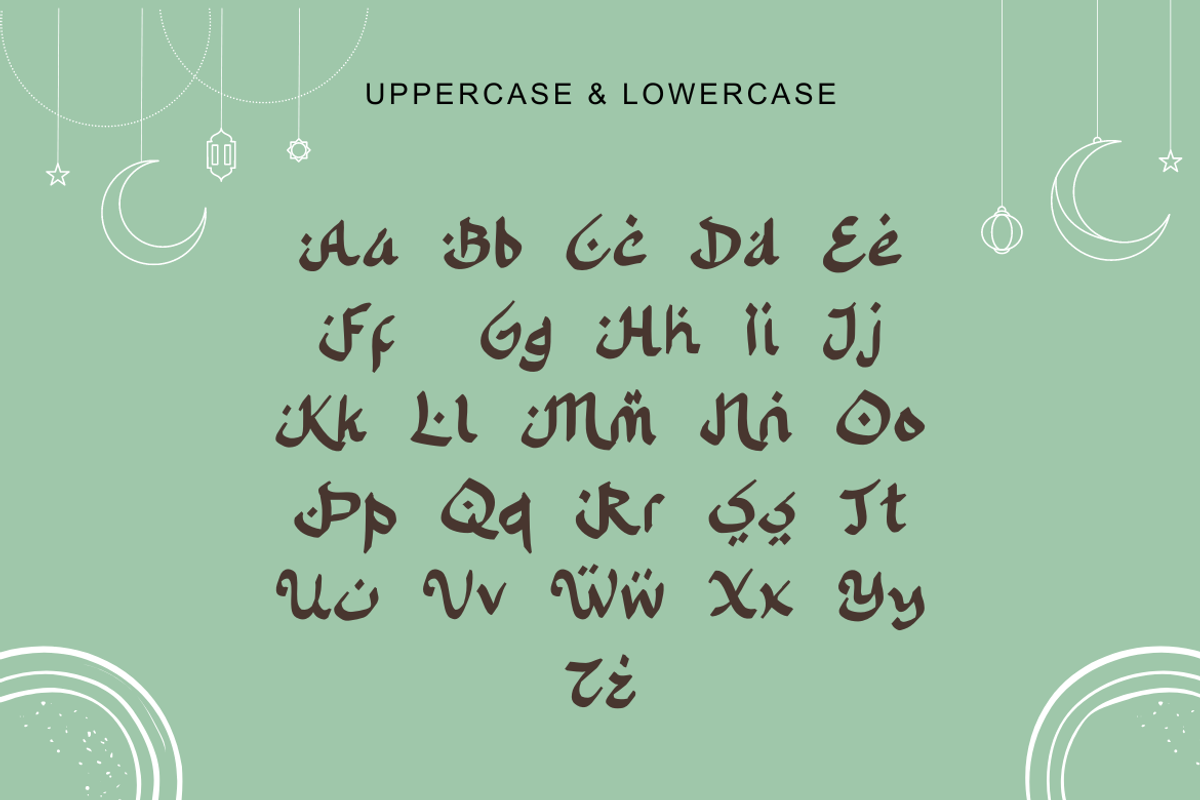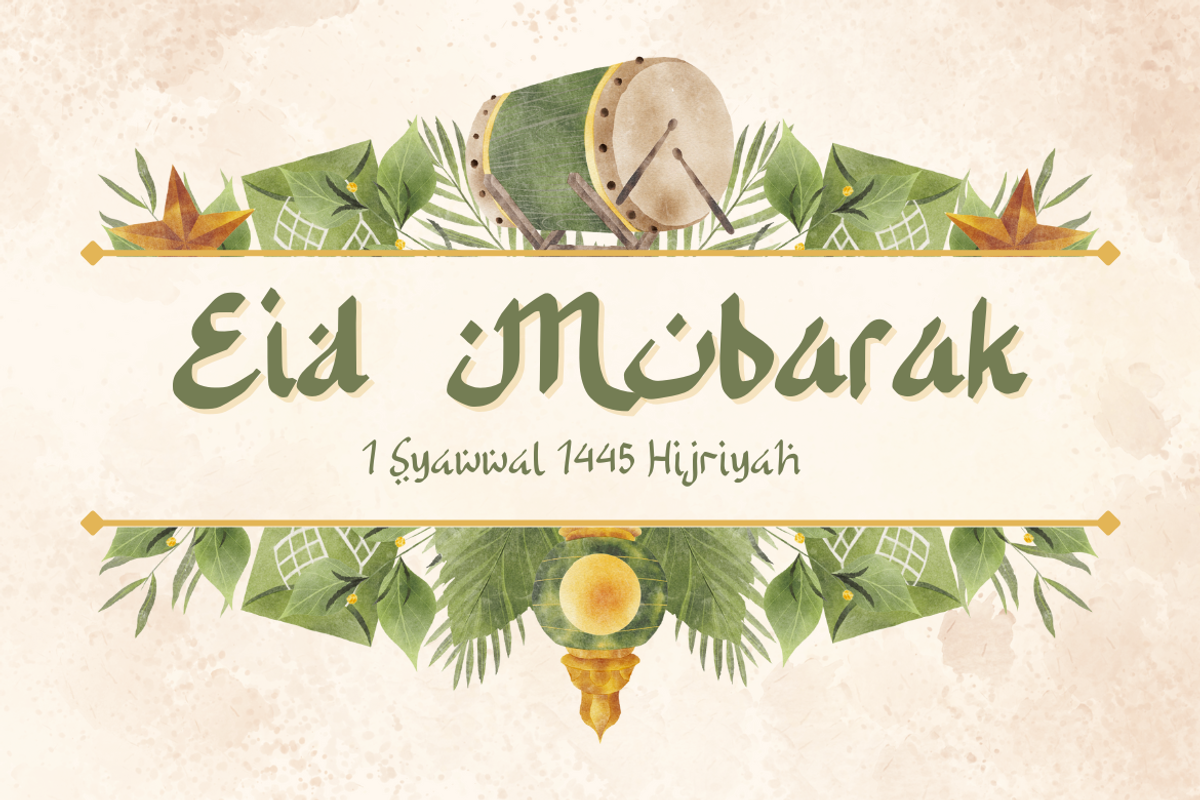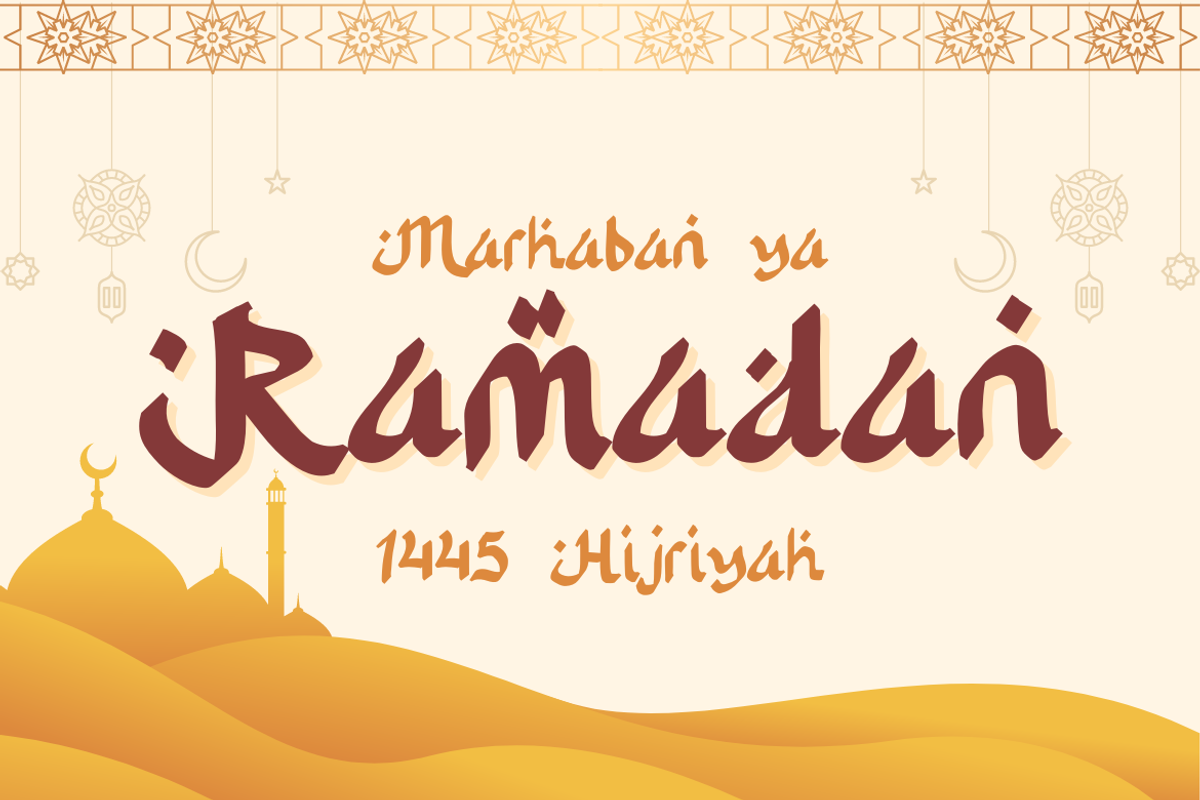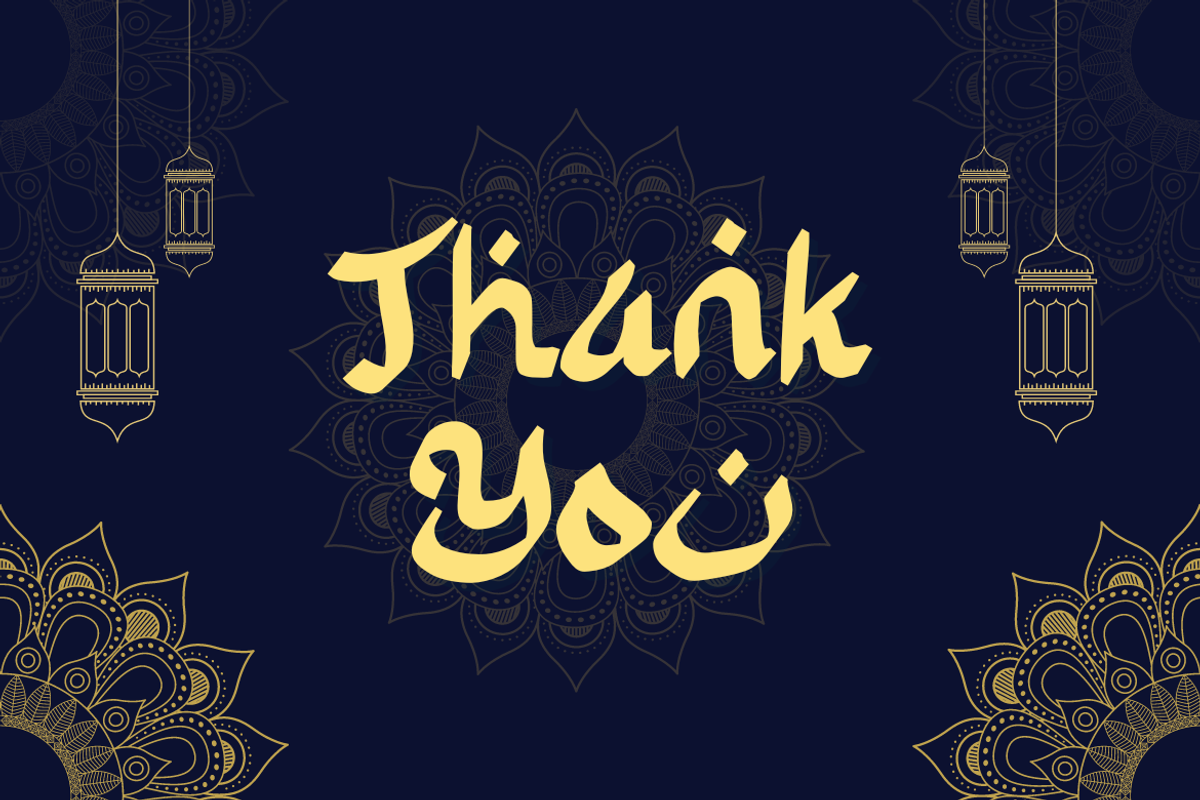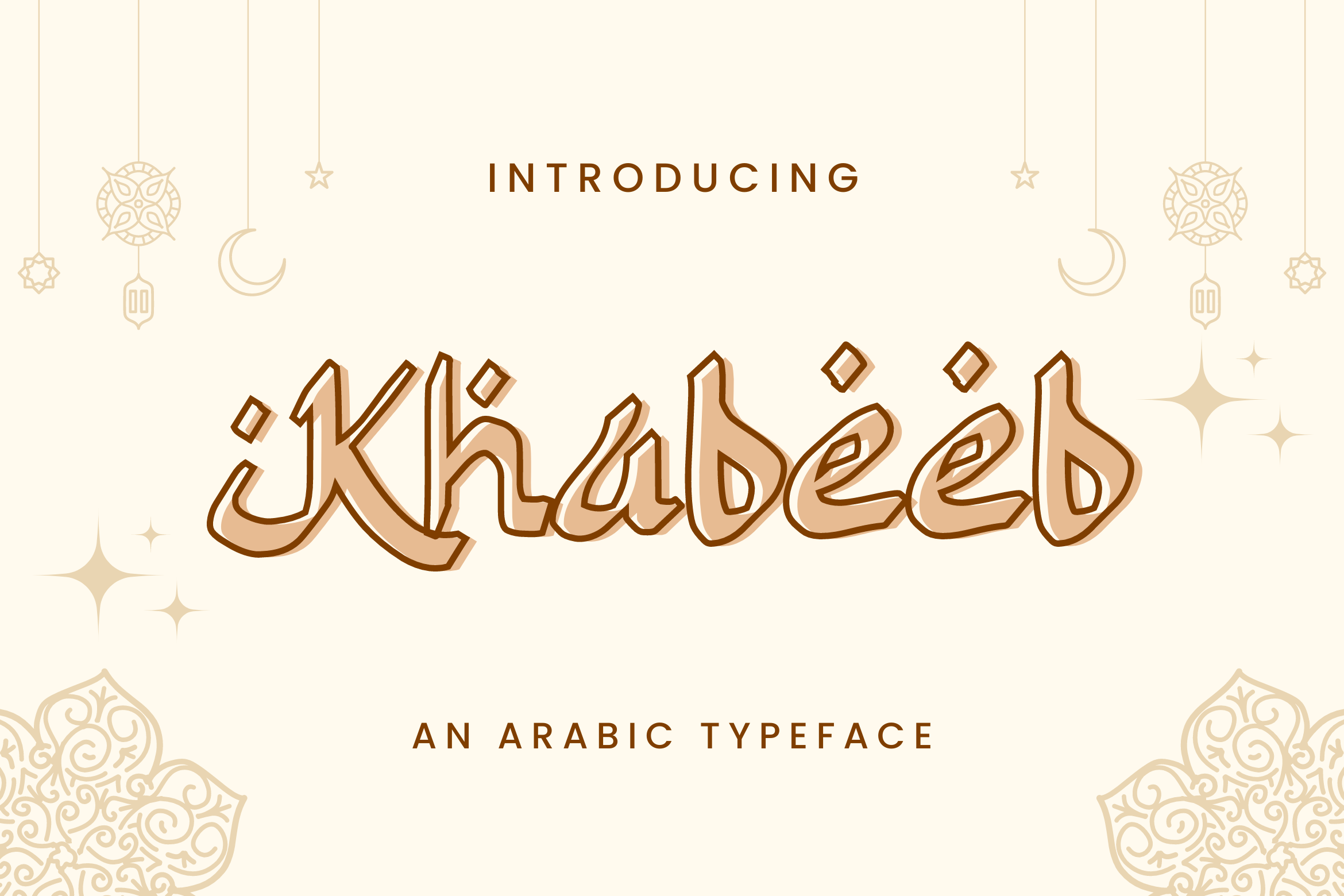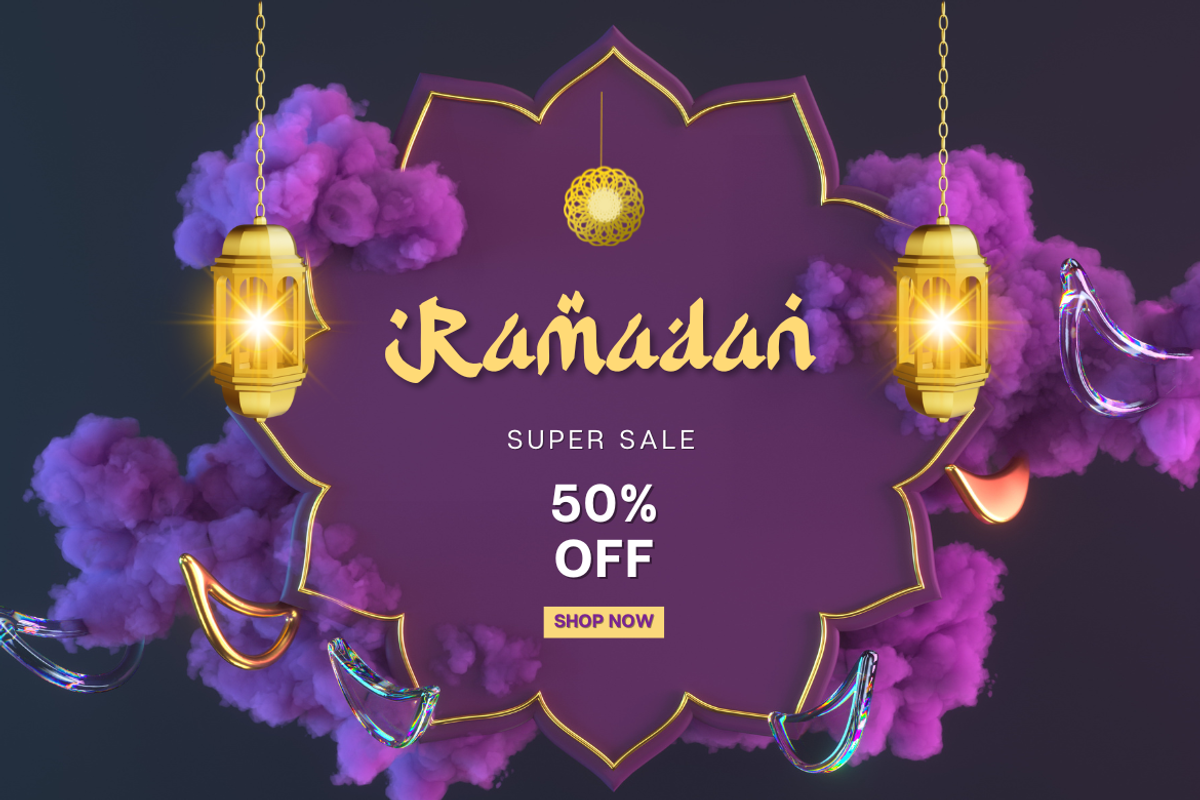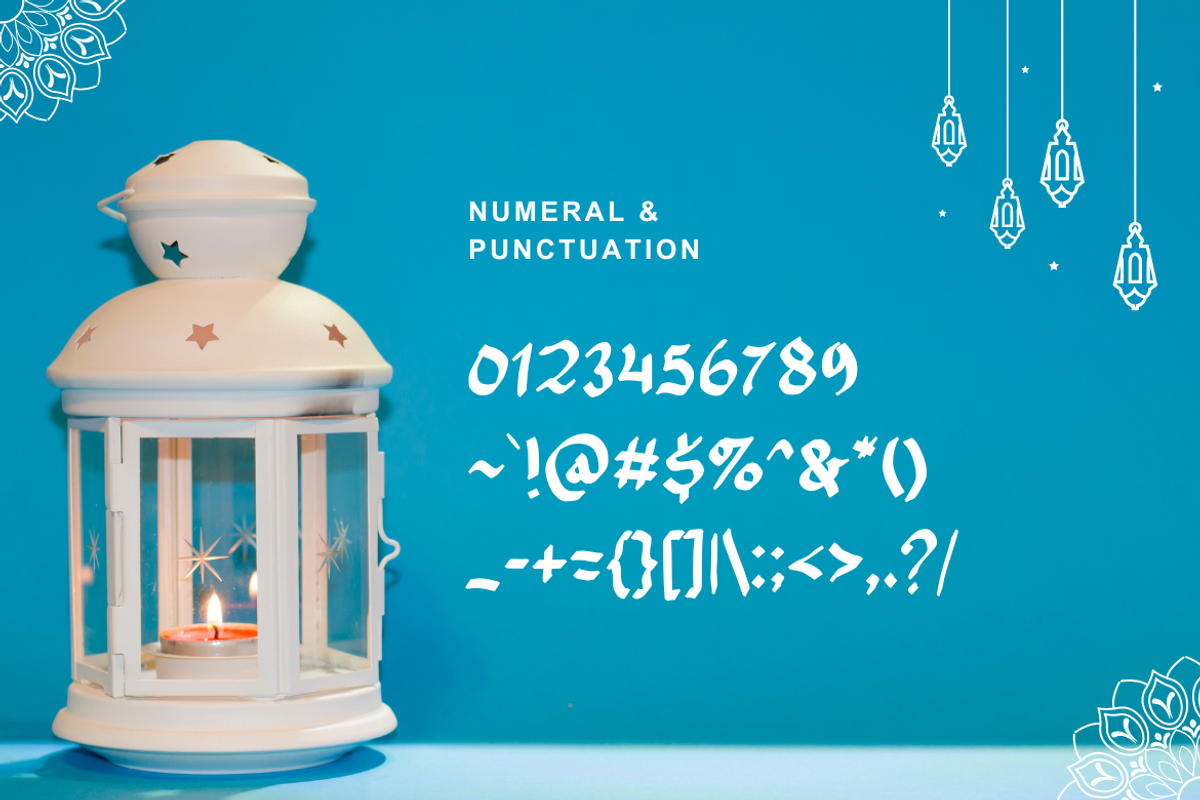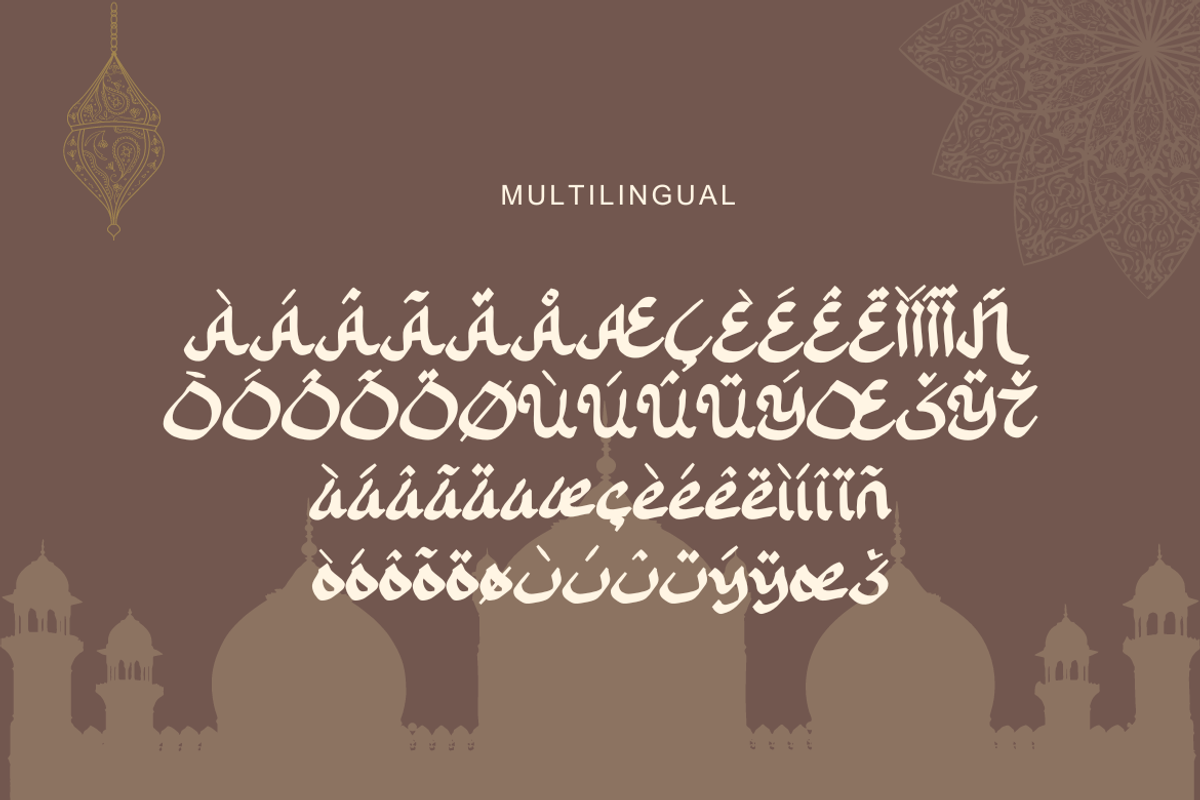
Khabeeb - An Arabic Typeface
Discover the timeless charm of Arabic calligraphy with Khabeeb, a sophisticated Arabic typeface that brings a touch of elegance and refinement to your designs. With its graceful curves and intricate details, Khabeeb captures the essence of traditional Arabic script while offering a modern twist that makes it perfect for a wide range of applications.
Whether you're creating logos, invitations, or editorial designs, Khabeeb's versatility and beauty will help your projects stand out. Embrace the beauty of Arabic typography and elevate your designs with Khabeeb.